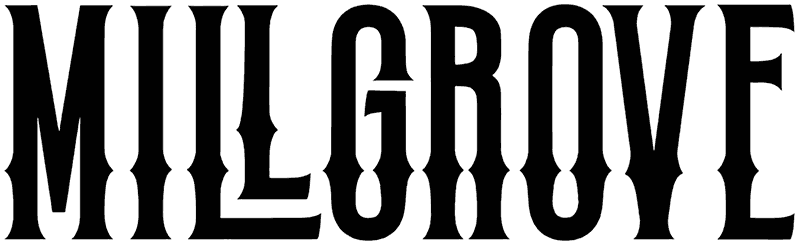
Millgrove Font
Everything you need to become a special and unique brand is gathered in Millgrove. This whiskey font has two different styles for capital letters that provide elegant and vintage typography and look clean, thoughtful, and classy anywhere.
So, many designers ignore the absence of small letters and use this magnificent font to convey messages in a historical and valuable format. If you want to join this group, you’re only one download button away from making your posters and book covers last.